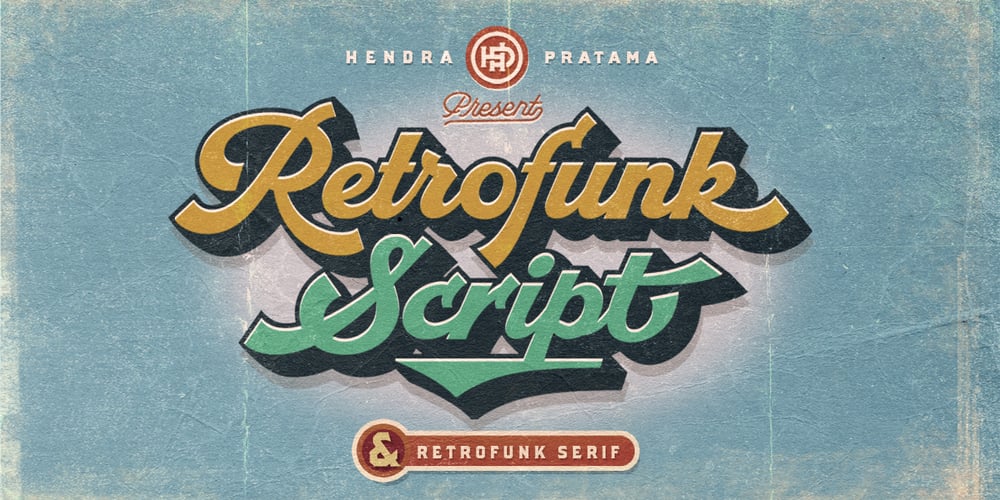
Retrofunk
Retrofunk font
Retrofunk Font Family was designed by Hendra Pratama and published by Hendra Pratama. Retrofunk contains 3 styles and family package options. Retrofunk was inspired by the retro typography design in 70’s. Script and Serif form a great combination for creating a logos, signboards or a simple word mark. Hundreds of Alternates with PUA Unicode are packed inside Retrofunk Script. Those alternate characters will help you to create a bold, strong, artistic and variate graphic design for flyers, posters, banner Ads, T-Shirts, book covers, titles or any retro or vintage typography. Tutorial: Watch how to access the alternate characters and pairing the basic script font with the extrude style here.